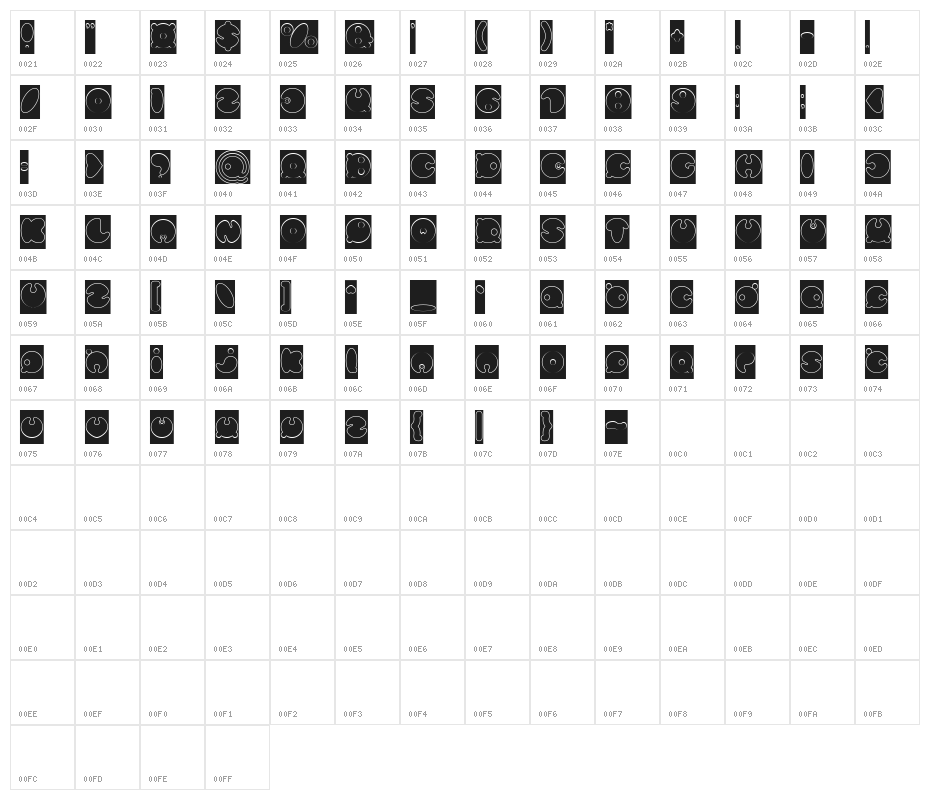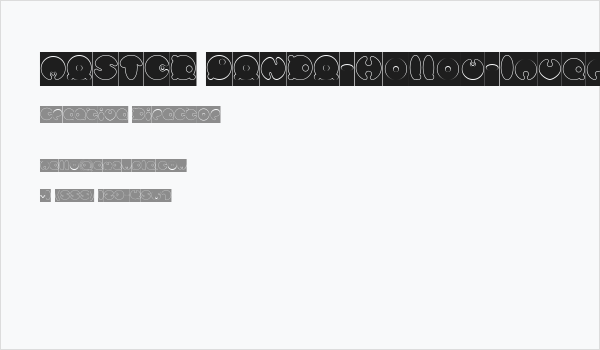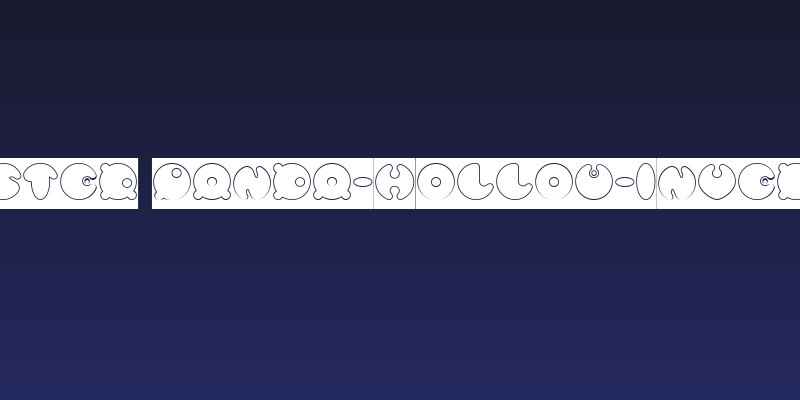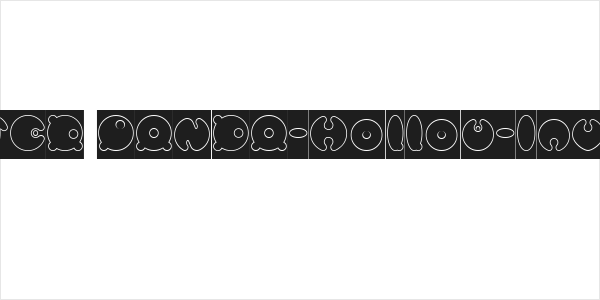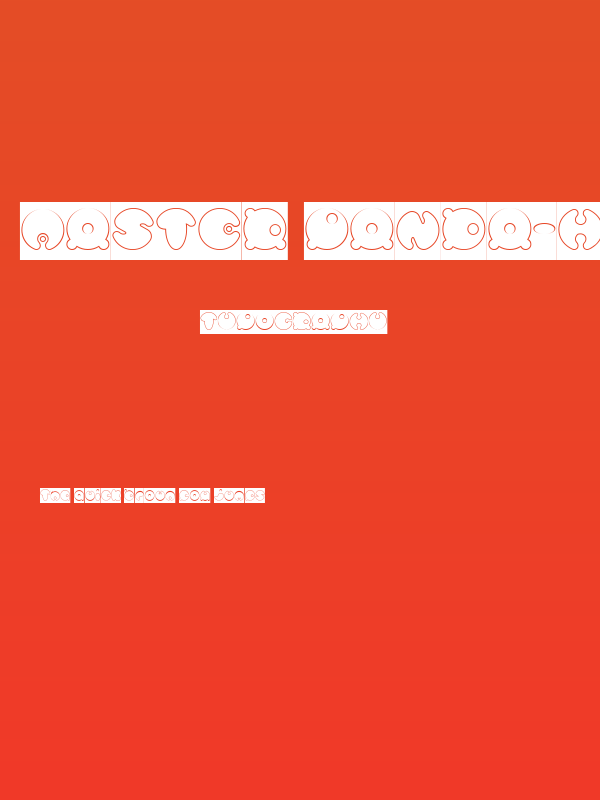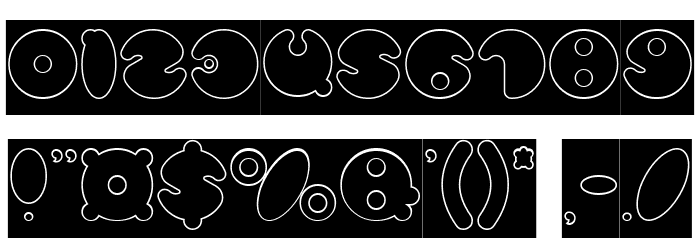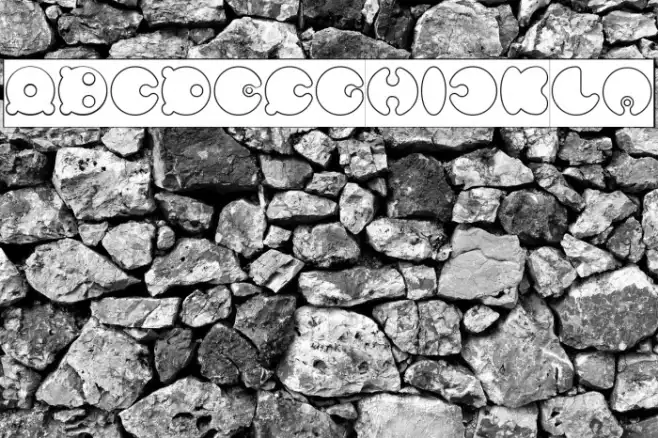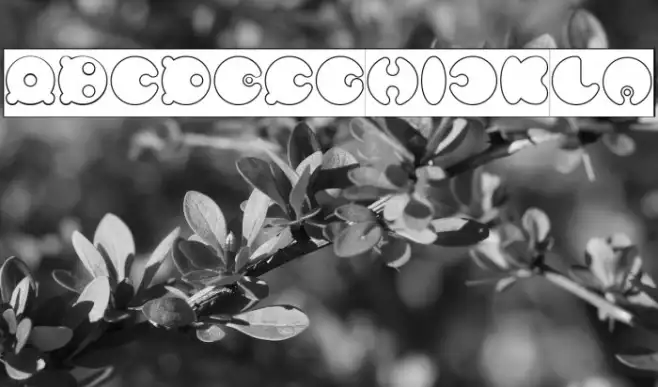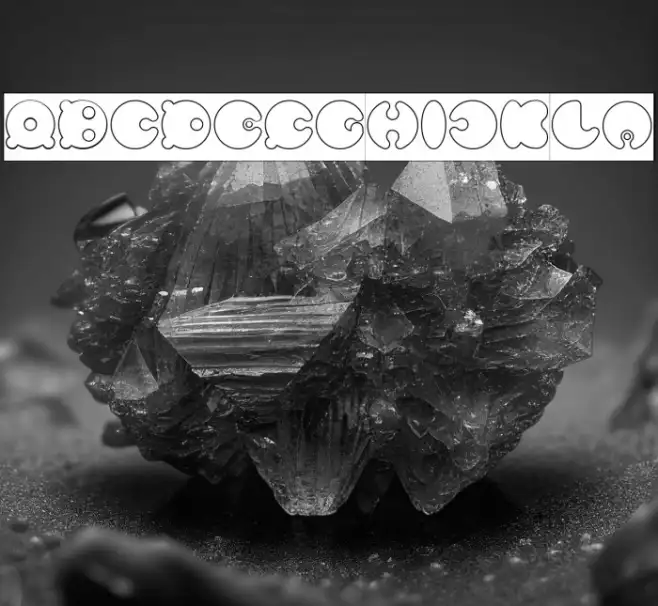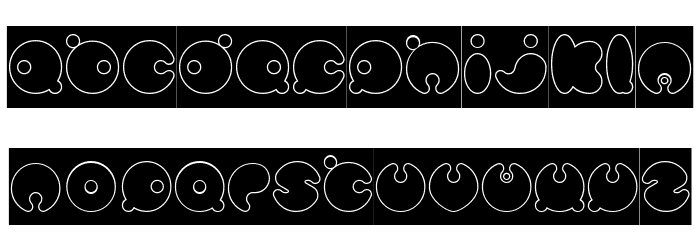
MASTER PANDA-Hollow-Inverse Font
MASTER PANDA-Hollow-Inverse Description
This playful and whimsical font features hollow, bubble-like characters with a unique inverse design. Each letter and number is crafted with rounded edges and a consistent thickness, creating a fun and approachable aesthetic. The font's style is reminiscent of cartoon or comic lettering, making it ideal for projects that require a lighthearted and informal touch. The characters are evenly spaced, ensuring readability while maintaining their distinctive style. The font includes a full set of uppercase and lowercase letters, numbers, and a variety of special characters, all designed with the same bubbly, hollow appearance. Its bold and decorative nature makes it stand out, perfect for capturing attention in creative projects.
| Overall Style | Playful, Whimsical, Cartoonish |
| Proposed Projects | Ideal for children's books, comic strips, playful branding, party invitations, and creative posters. |